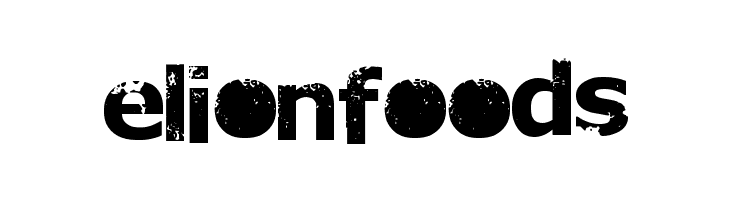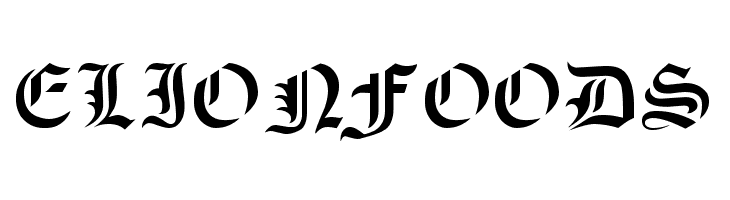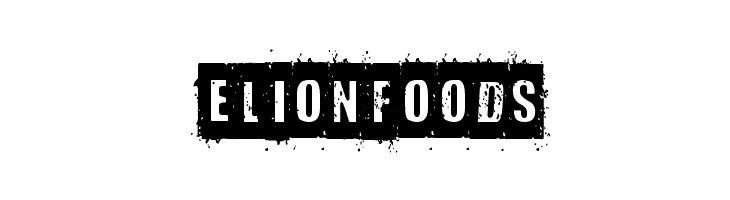
A bold, distressed font with a grunge texture and rugged appearance.
A distressed, textured font with a bold, vintage style.
A bold, graffiti-inspired font with a playful, artistic style.
A whimsical handwritten font with elegant curves and playful swirls.
A bold blackletter stencil font combining historical elegance with modern industrial flair.
An ornate and decorative font with intricate patterns and historical motifs.
A bold, distressed stencil font with an industrial, grunge aesthetic.
A bold, blackletter-style font with intricate, gothic details.